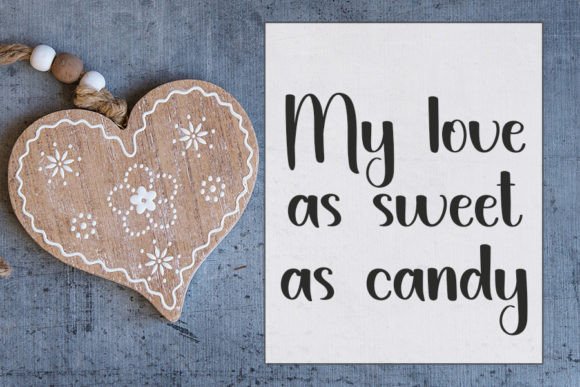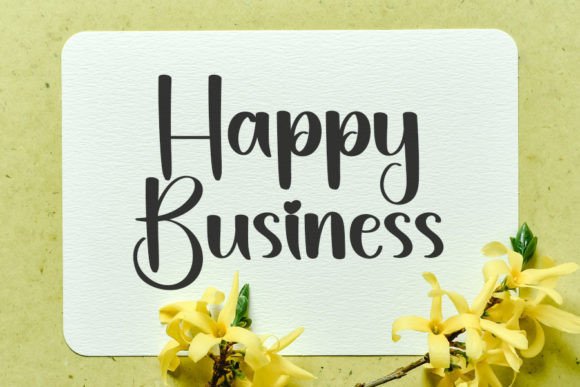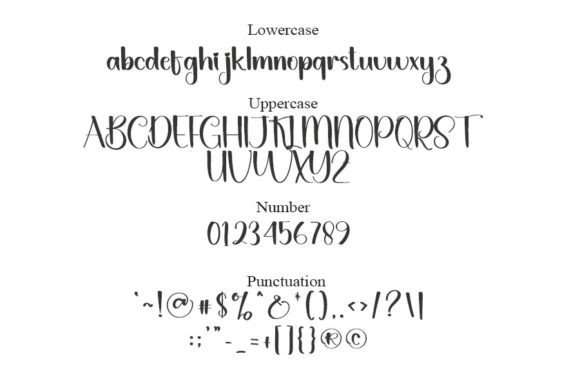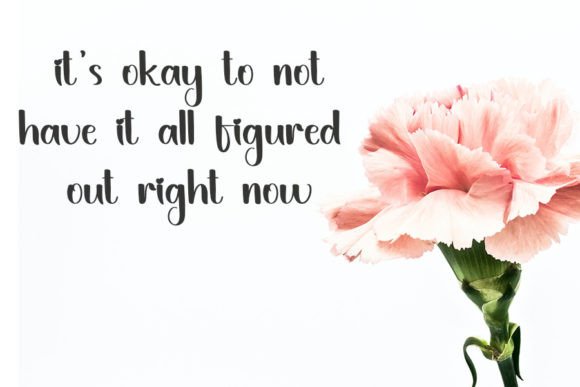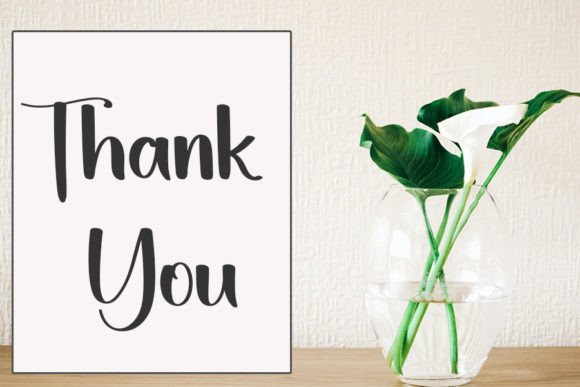
Candy Font: Elevate Your Designs with a Touch of Elegance
In the world of typography, fonts play a crucial role in conveying the tone and personality of a design. For designers and crafters looking to add a touch of sophistication and elegance to their projects, the Candy Font is an excellent choice. This trendy handwritten font boasts a contemporary atmosphere and impeccable form, making it perfect for a wide range of design applications.
Inspired by Timeless Classic Calligraphy
The Candy Font draws inspiration from timeless classic calligraphy, bringing a sense of tradition and heritage to modern designs. Its elegant strokes and refined letterforms evoke a sense of luxury and sophistication, making it ideal for projects that require a high-end feel. Whether you’re working on a branding project, packaging design, or digital artwork, the Candy Font is sure to impress.
Key Features of the Candy Font
- Trendy Handwritten Style: The Candy Font features a modern handwritten style that adds a personal touch to any design.
- Contemporary Atmosphere: Its sleek and refined letterforms create a contemporary atmosphere that’s perfect for modern designs.
- Impeccable Form: The font’s impeccable form ensures that it remains legible and visually appealing, even at small sizes.
- Elegant Strokes: The Candy Font’s elegant strokes and refined letterforms add a touch of sophistication to any design.
Uses for the Candy Font
The Candy Font is versatile and can be used in a variety of design projects, including:
- Branding and Logo Design: The font’s elegant and sophisticated feel makes it perfect for branding and logo design projects.
- Packaging Design: Add a touch of luxury to your packaging designs with the Candy Font.
- Digital Artwork: The font’s modern and trendy feel makes it ideal for digital artwork, such as social media graphics and blog posts.
- Wedding and Event Design: The Candy Font’s elegant and refined feel makes it perfect for wedding and event designs, such as invitations and programs.
Tips for Using the Candy Font
To get the most out of the Candy Font, here are a few tips to keep in mind:
- Pair with Neutral Colors: Pair the Candy Font with neutral colors, such as black, white, and gray, to create a sophisticated and elegant look.
- Experiment with Font Sizes: Experiment with different font sizes to create visual interest and hierarchy in your designs.
- Add Texture and Patterns: Add texture and patterns to your designs to create depth and visual interest.
The Candy Font is a versatile and elegant font that’s perfect for designers and crafters looking to add a touch of sophistication to their projects. With its trendy handwritten style, contemporary atmosphere, and impeccable form, this font is sure to elevate your designs and leave a lasting impression. Whether you’re working on a branding project, packaging design, or digital artwork, the Candy Font is an excellent choice.